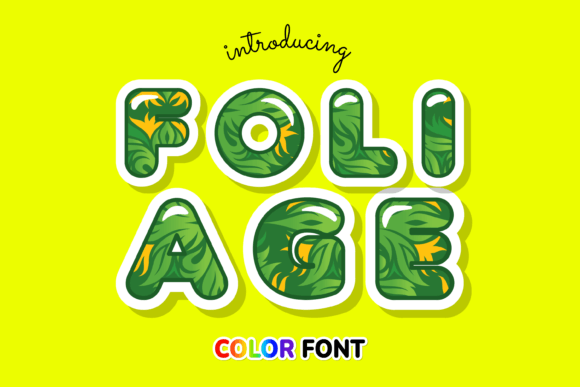
In a realm where creativity and expression intertwine, meet Foliage Font, a vibrant color symphony that ignites your designs with a kaleidoscope of hues. This extraordinary font family, meticulously crafted by JUSTTYPE, is not just a mere collection of letters; it's an open invitation to unleash your imagination and transform your design dreams into captivating realities.
Foliage Font is a symphony of colors, a vibrant ensemble of shades that dances across your designs with breathtaking elegance. Its hues are like whispers of nature's palette, inviting a sense of tranquility and harmony into your creations. Whether you're a seasoned designer or just starting your creative journey, Foliage Font is your perfect companion, guiding you through a world of limitless possibilities.
Beyond its aesthetic allure, Foliage Font is remarkably versatile, adapting seamlessly to a myriad of design endeavors. Its graceful curves and dynamic strokes add a touch of whimsy to invitations, logos, and branding projects, while its bold presence commands attention in posters, flyers, and social media graphics. Unleash your creativity and let Foliage Font orchestrate a visual masterpiece that captivates and inspires.
For those with a passion for crafting, Foliage Font is an indispensable tool. Its compatibility with popular design software like PhotoShop, Illustrator, Silhouette, and Inkscape makes it a breeze to incorporate into your DIY projects. Create personalized cards, decorate home décor items, or design unique t-shirts that reflect your unique style. With Foliage Font, the possibilities are as endless as your imagination.
With Foliage Font, you're not just downloading a font; you're embarking on a creative odyssey, a journey where colors ignite your designs and emotions find expression. Its user-friendly nature and stunning aesthetics make it the perfect choice for both seasoned professionals and those just beginning their design adventure. Embrace the allure of Foliage Font and witness the transformation of your designs into captivating works of art.
Unlock the gateway to a world of creativity with Foliage Font. Experience the fusion of colors and elegance, the boundless versatility that breathes life into your designs. Let your imagination run wild and embark on a journey where your creations blossom with vibrancy and charm. Foliage Font - ignite your designs, unleash your creativity.